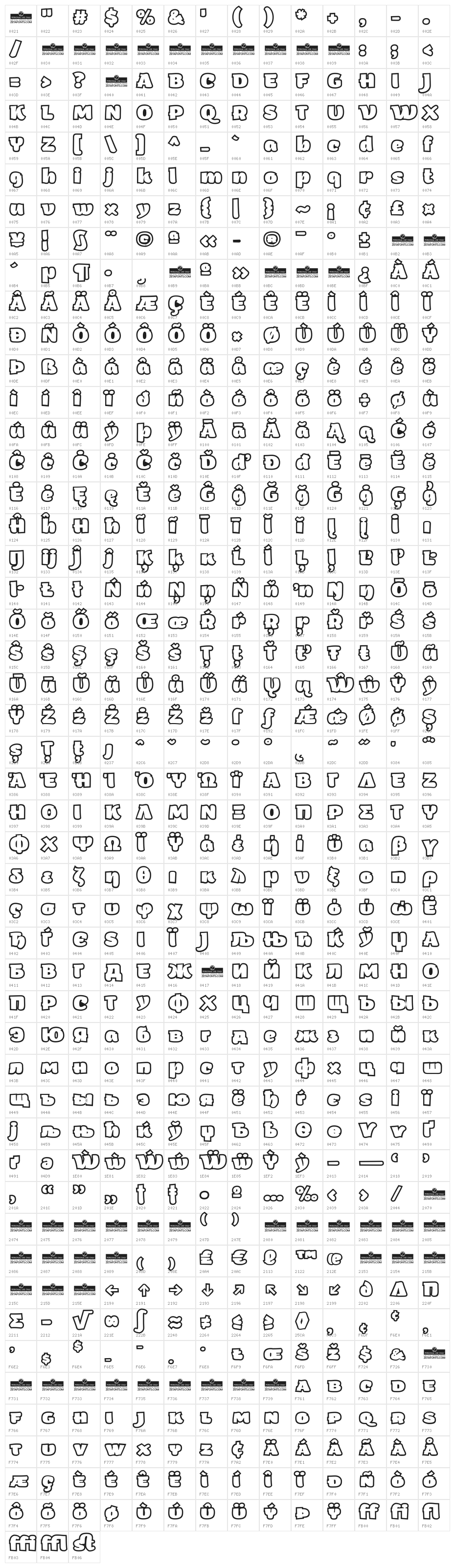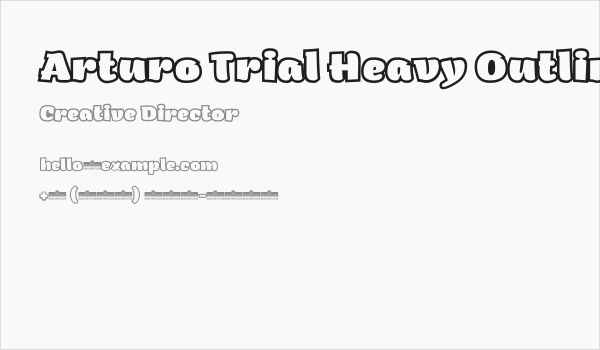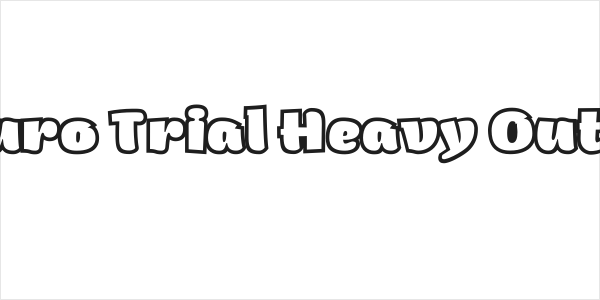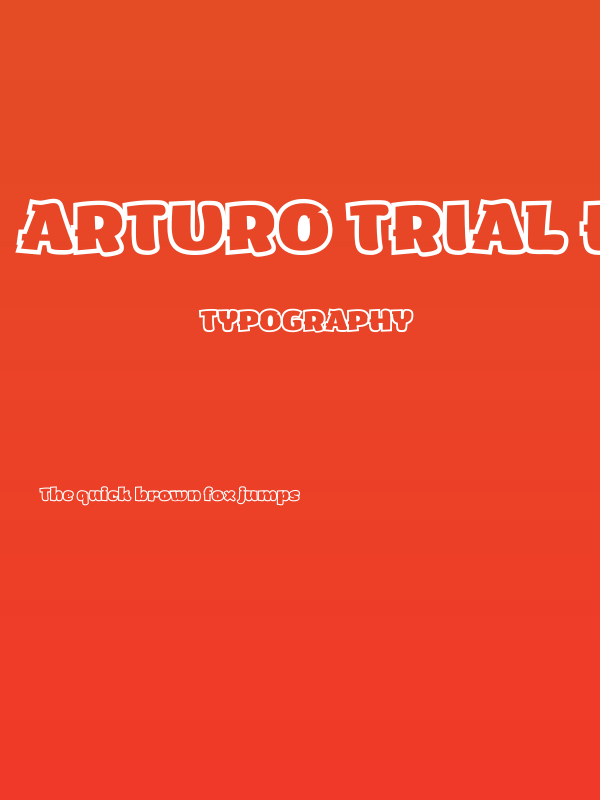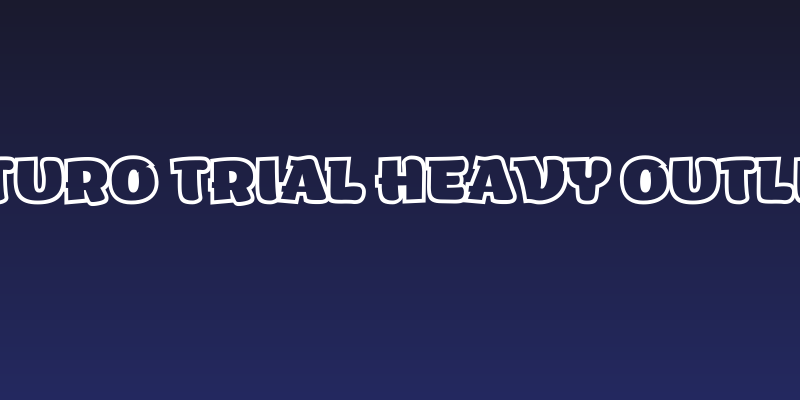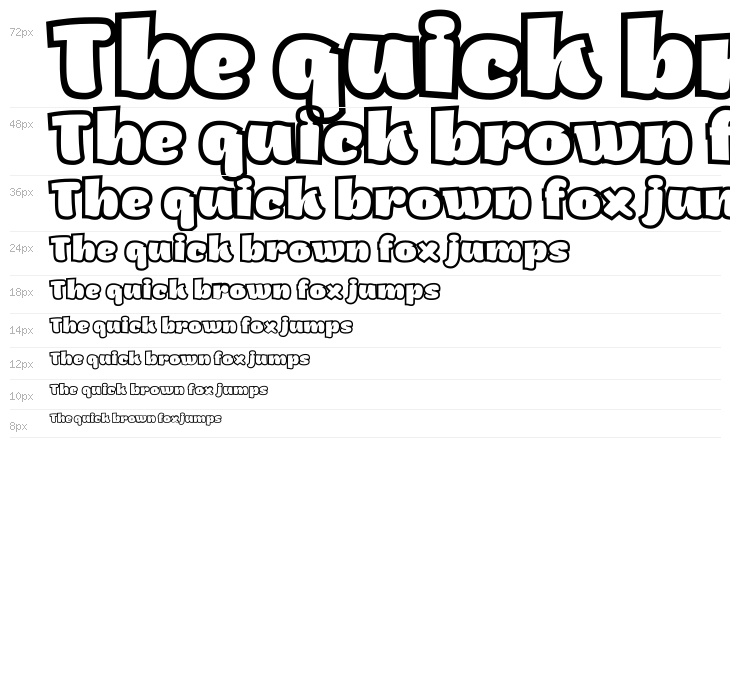
Arturo Trial Heavy Outline Font
Arturo Trial Heavy Outline Description
This font features a bold and playful design with heavy outlines that give it a distinctive and eye-catching appearance. The characters are rounded and have a cartoon-like quality, making them stand out with a strong visual presence. The uppercase and lowercase letters maintain a consistent style, with the lowercase letters being slightly more compact. The numbers and special characters follow the same bold and outlined style, ensuring uniformity across all glyphs. This font's unique style is suitable for projects that require a fun and engaging look.
Overall StylePlayful, Cartoonish, Bold
Proposed ProjectsIdeal for children's books, comic strips, playful branding, and eye-catching posters.